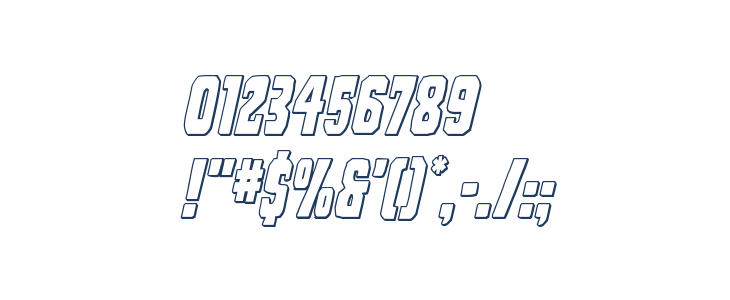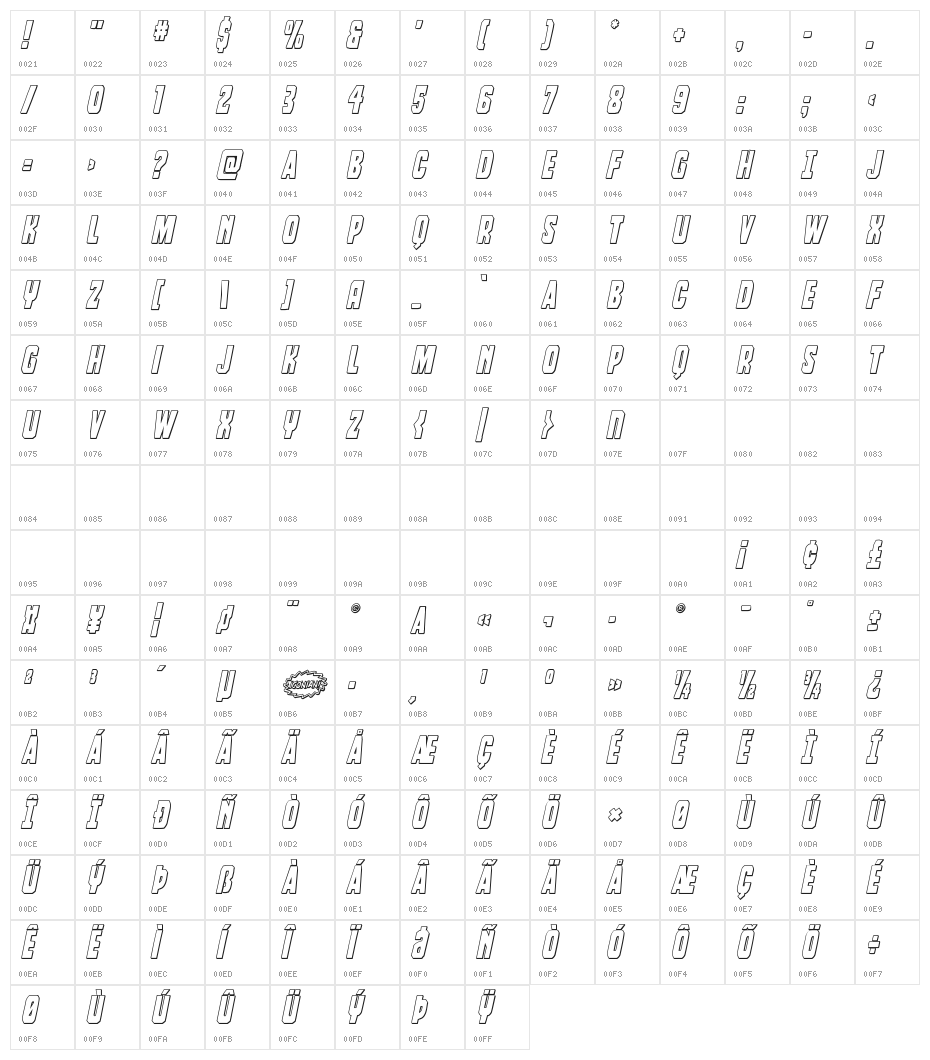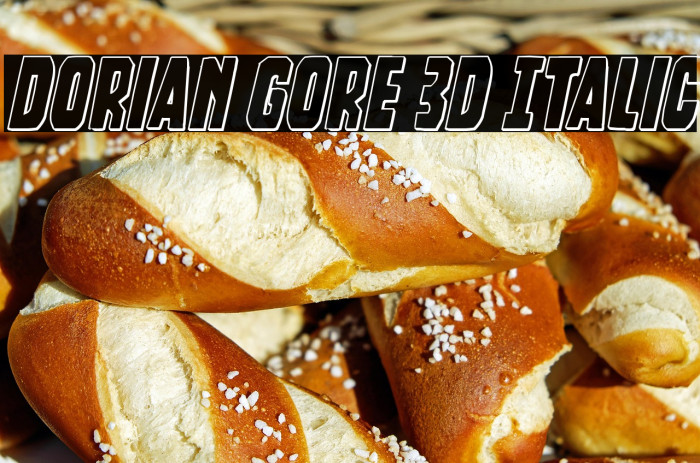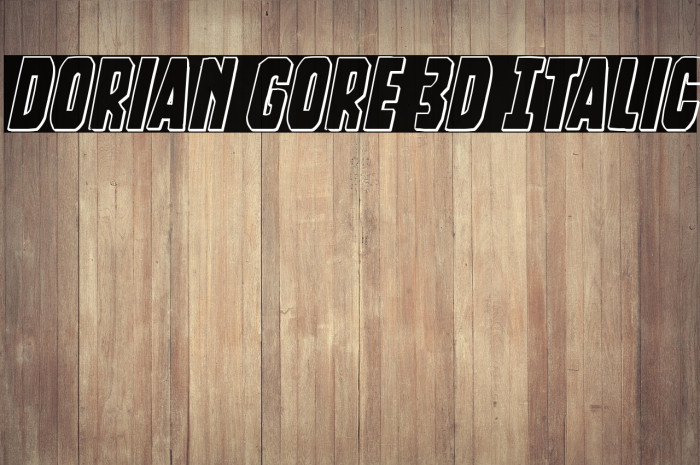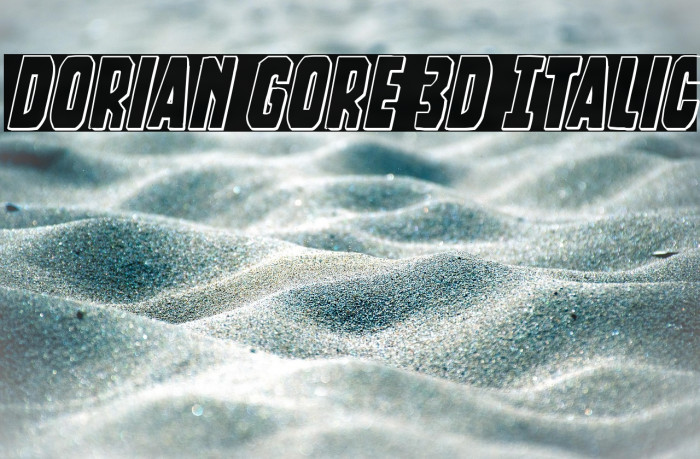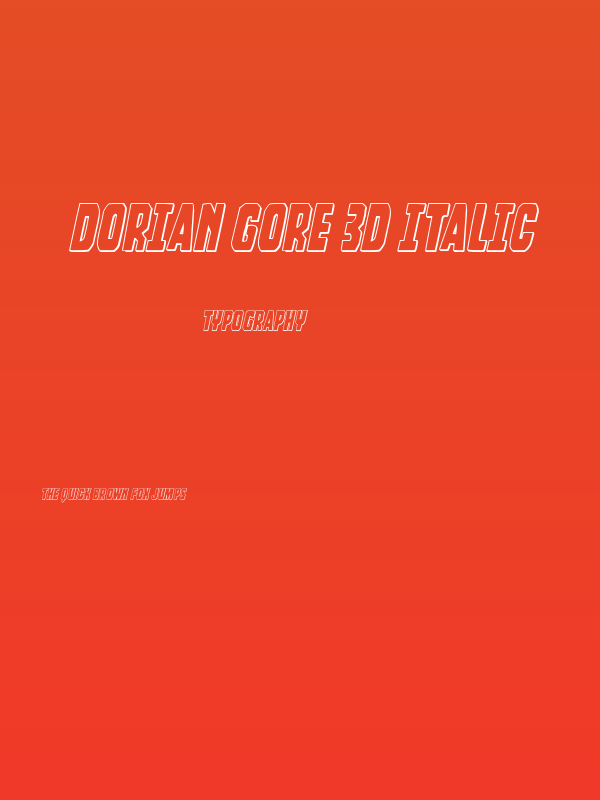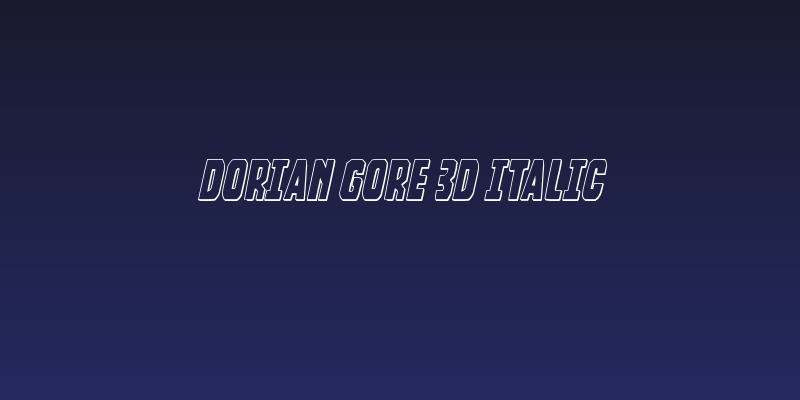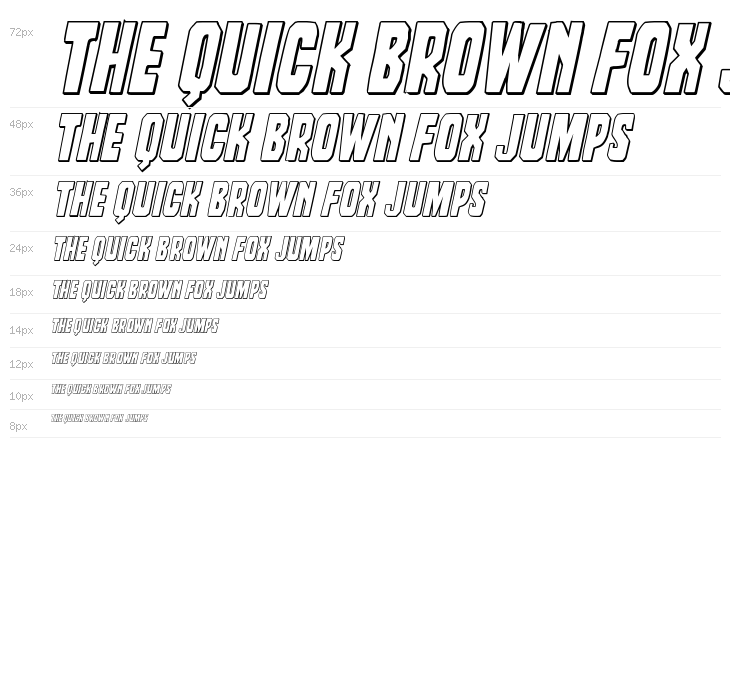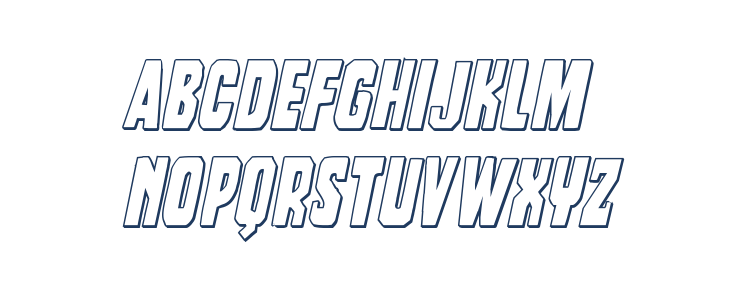
Dorian Gore 3D Italic Font
Dorian Gore 3D Italic Description
This font features a bold, 3D italic style with a strong presence. The letters are outlined, giving them a distinct shadow effect that adds depth and dimension. The uppercase and lowercase letters maintain a consistent slant, enhancing the italicized appearance. The numbers and special characters follow the same design principles, ensuring uniformity across all glyphs. This font's boldness and 3D effect make it stand out, making it suitable for attention-grabbing designs.
| Proposed Projects | Ideal for posters, headlines, logos, and any design requiring a bold, eye-catching font. |